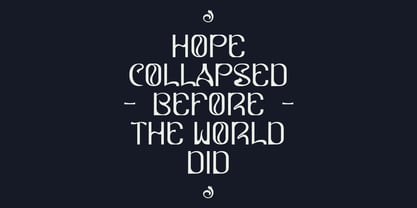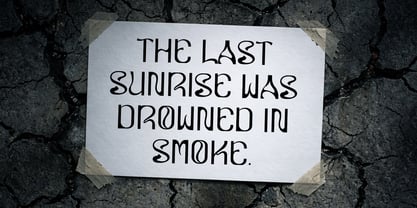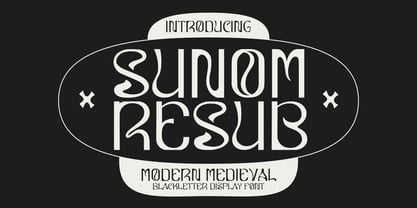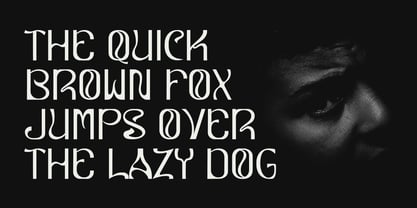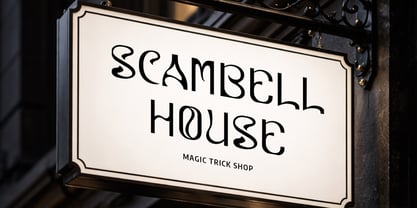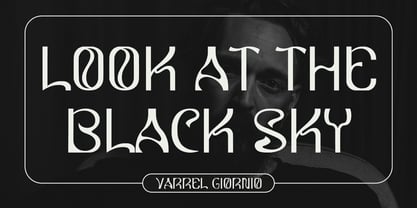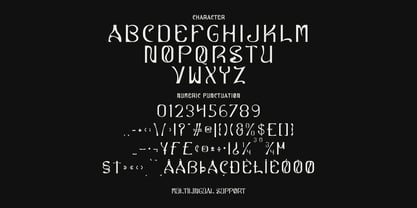
MC Sunomresub
by Maulana Creative
The MC Sunomresub Font Family was designed by Gilang Maulana and published by Maulana Creative. MC Sunomresub contains 1 styles. More about this family
Sunom Resub is a striking display font that bridges the gap between ancient manuscript aesthetics and contemporary graphic design. Characterized by its unique fluid curves and sharp, high contrast terminals, this font reinterprets traditional Blackletter forms with a psychedelic, "liquid" twist. Its elegant yet slightly haunting letterforms make it an ideal choice for branding projects that require a touch of mystery, dark fantasy, or gothic sophistication. Whether used for editorial layouts, music, or mystical themed, Sunom Resub demands attention with its bold, artistic presence.
Designers: Gilang Maulana
Foundry: Maulana Creative